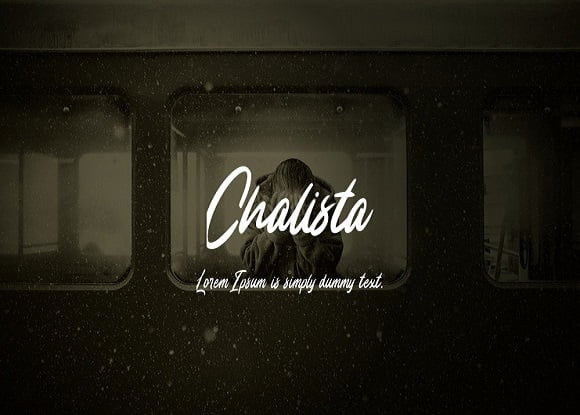
Chalista Brush Script Font
Chalista is a magical brush script font, carefully designed with a touch of elegance. Its romantic and timeless feel helps you create stunning wedding cards, greeting cards, birthday invitations, and anything else you think of.